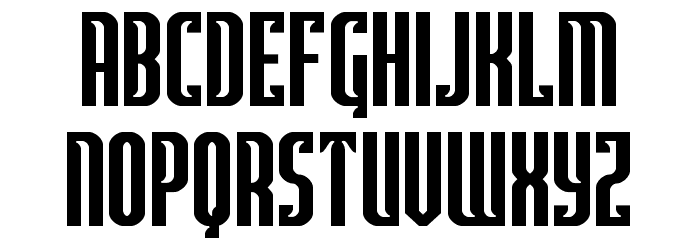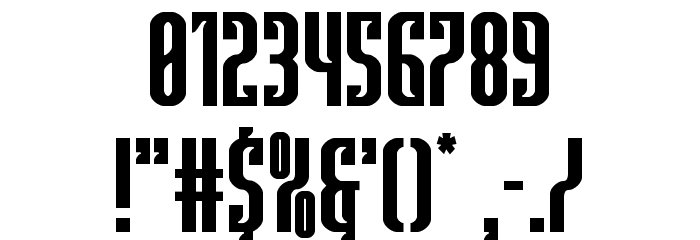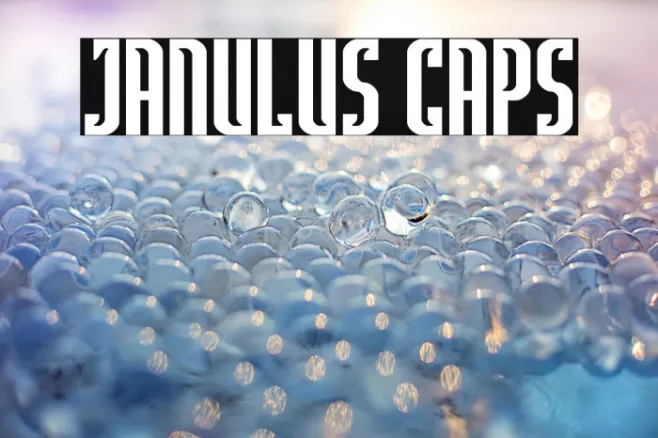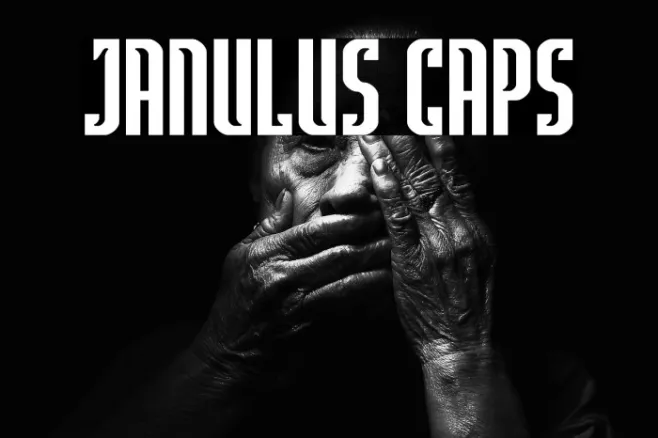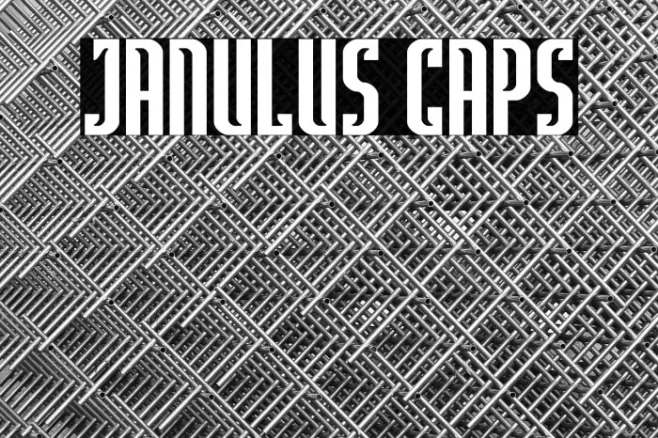
Janulus Caps Font
This font features a bold and striking design with a modern, geometric style. The characters are tall and narrow, with sharp angles and clean lines that create a sense of strength and precision. The uppercase letters are particularly distinctive, with unique cutouts and angular shapes that add a dynamic and futuristic feel. The numbers and special characters maintain this bold aesthetic, ensuring consistency across all glyphs. This font is perfect for making a strong visual impact, with its high contrast and attention-grabbing appearance.
A bold, geometric font with sharp angles and a modern style.
- Font: Janulus Caps
- Proposed Projects: Ideal for branding, posters, headlines, and any project requiring a strong, modern aesthetic.